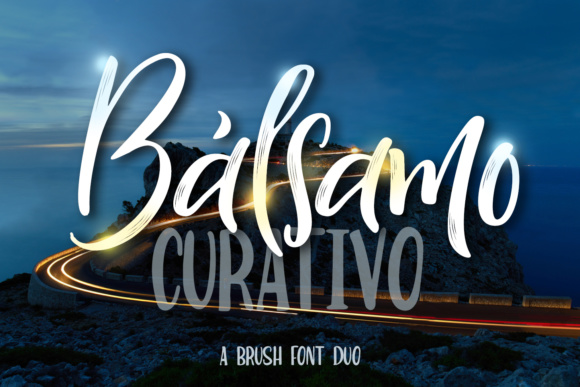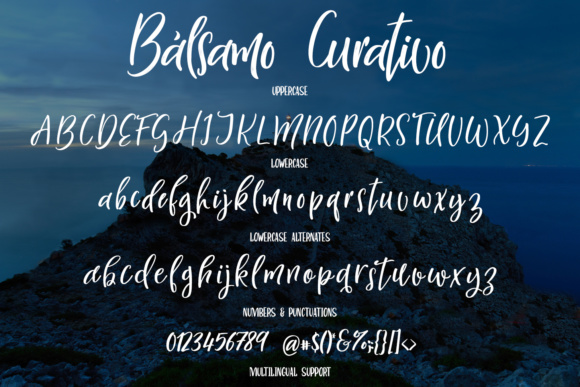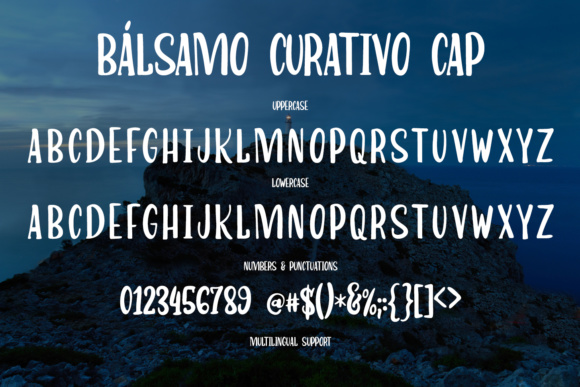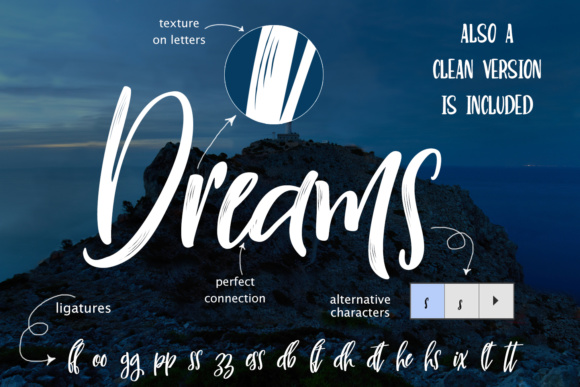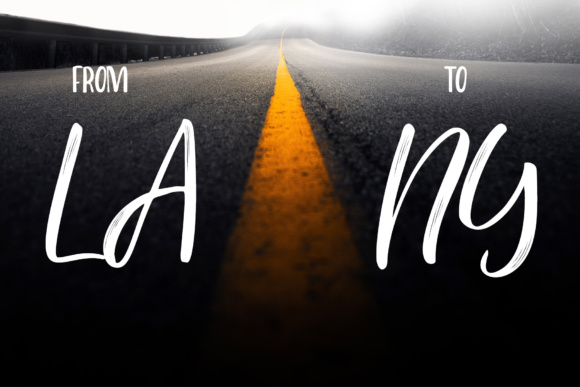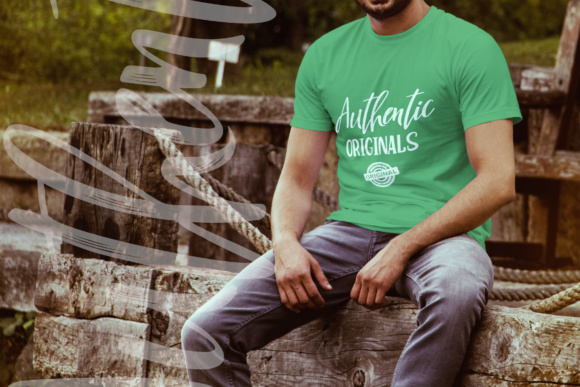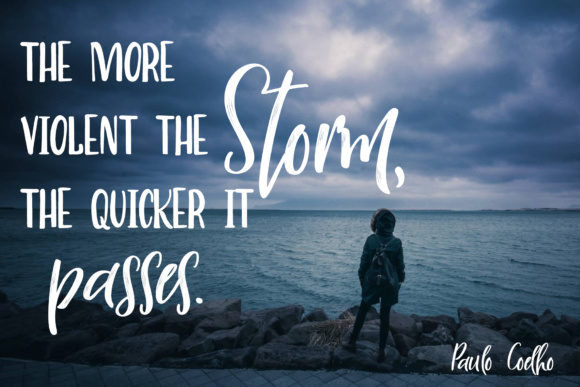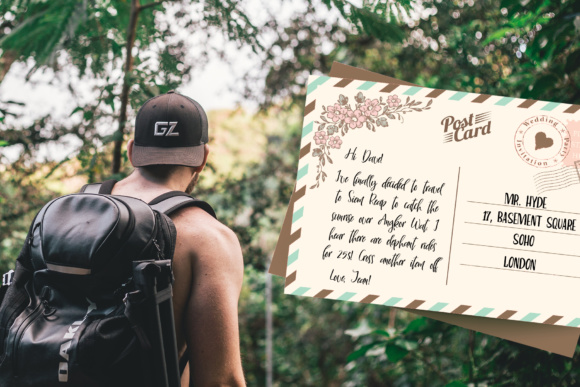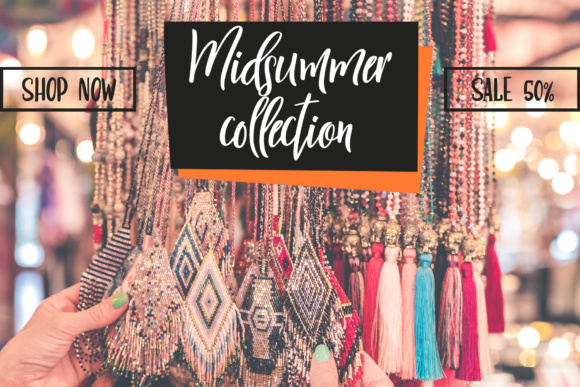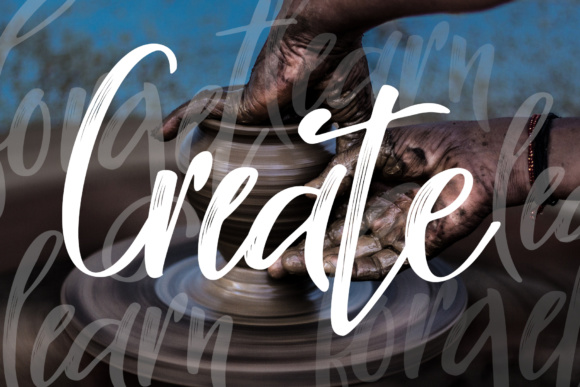
Bálsamo Curativo Duo Font
About Bálsamo Curativo Duo Font
Bálsamo Curativo is a fancy hand lettering typeface with a clear style, good mood, and dramatic movement. It’s allowing you to create beautiful hand-made typography in an instant. The Bálsamo Curativo comes with set of lowercase alternates – pick the letters that looks best in your type design – and switch between different letters in the same word to create a more authentic look.